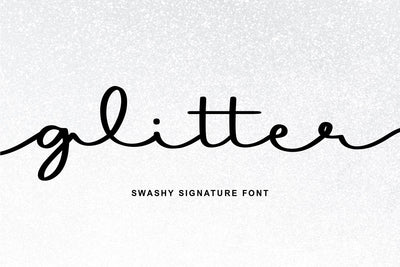
Glitter
Glitter is a swashy signature font that brings an elegant, flowing touch to every design. Its graceful curves and smooth strokes create a refined handwritten look, perfect for adding sophistication and charm. With its stylish swashes and natural rhythm, Glitter is ideal for branding, invitations, logos, and social media posts that need a personal yet luxurious feel.